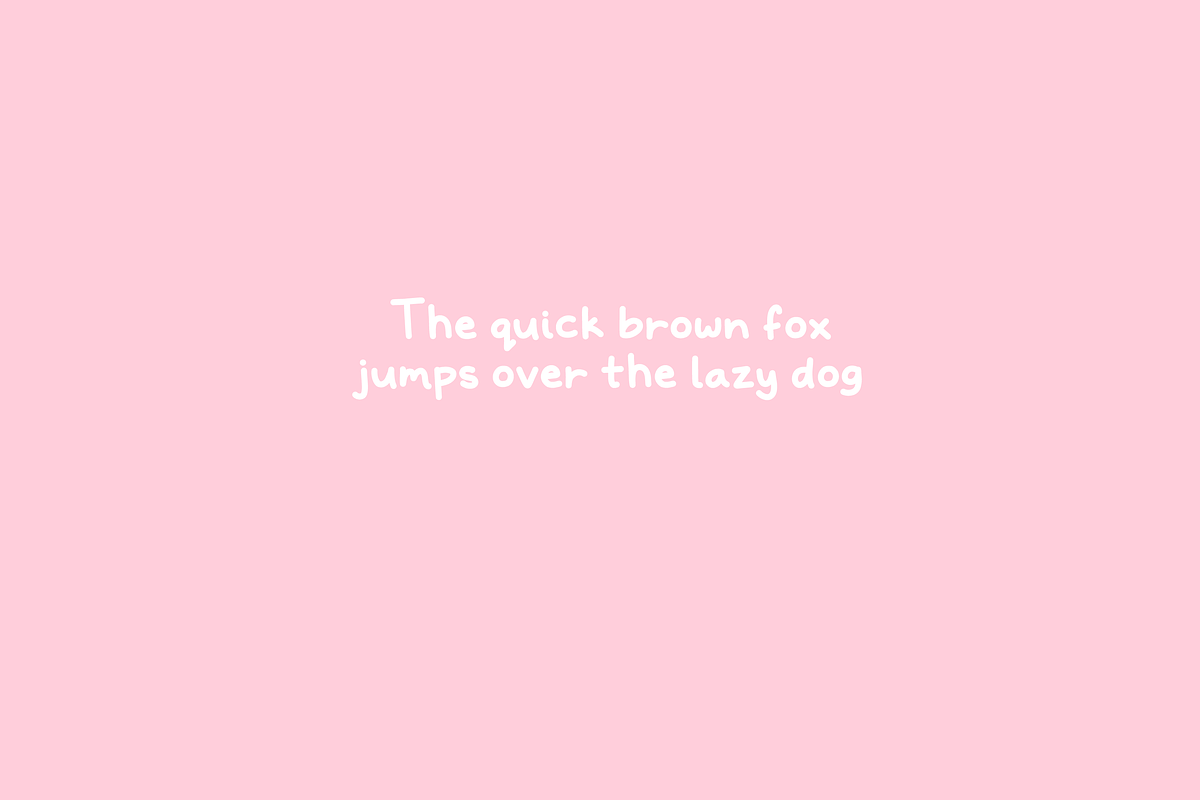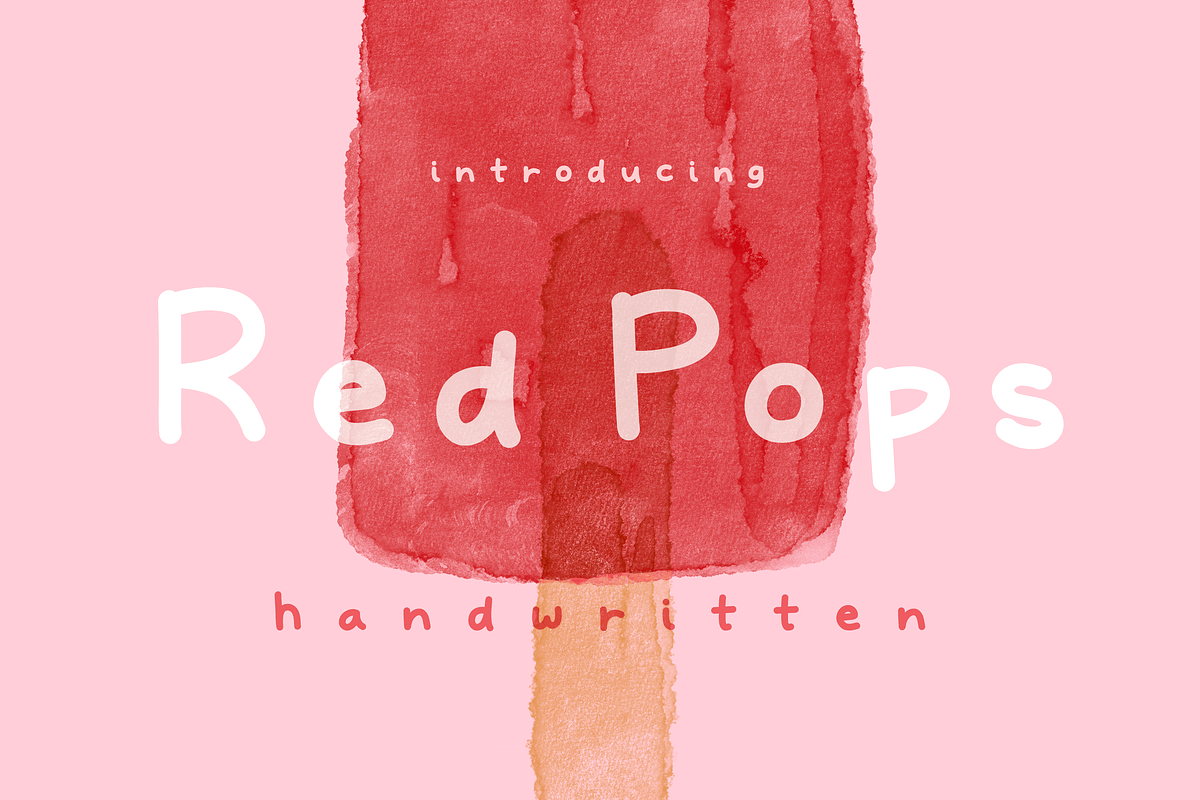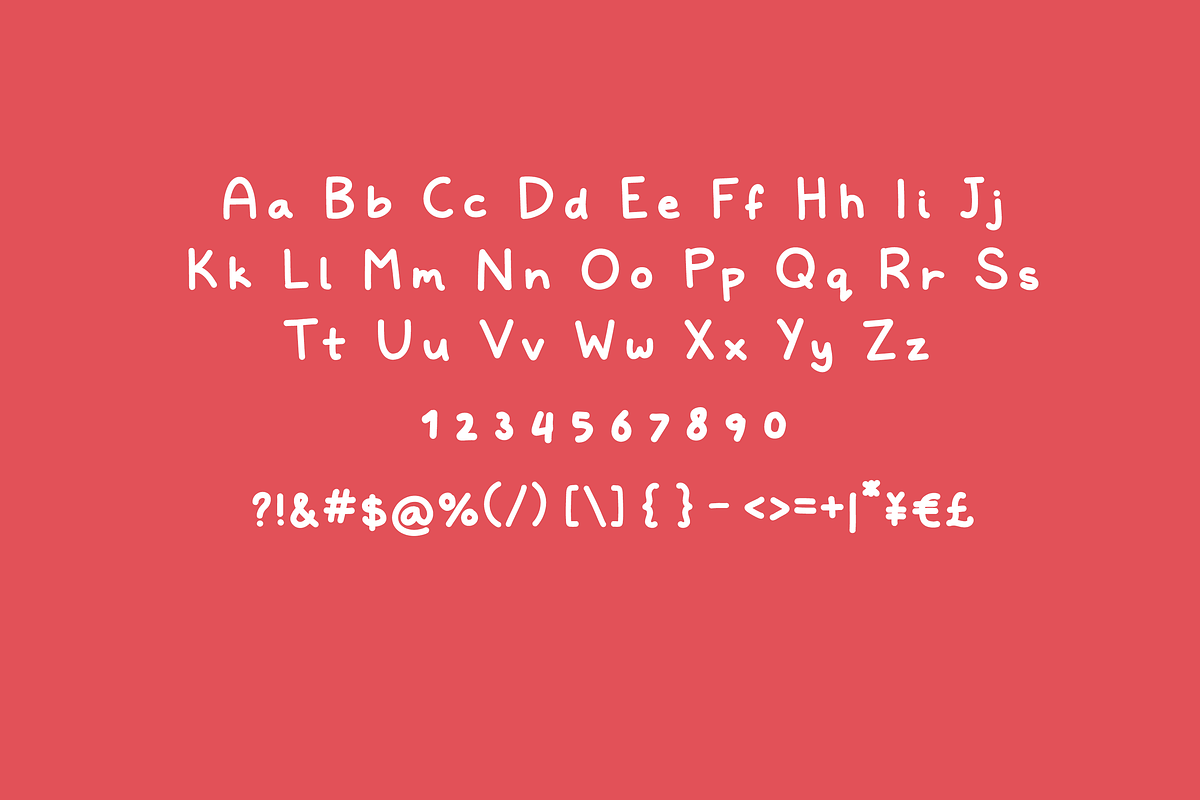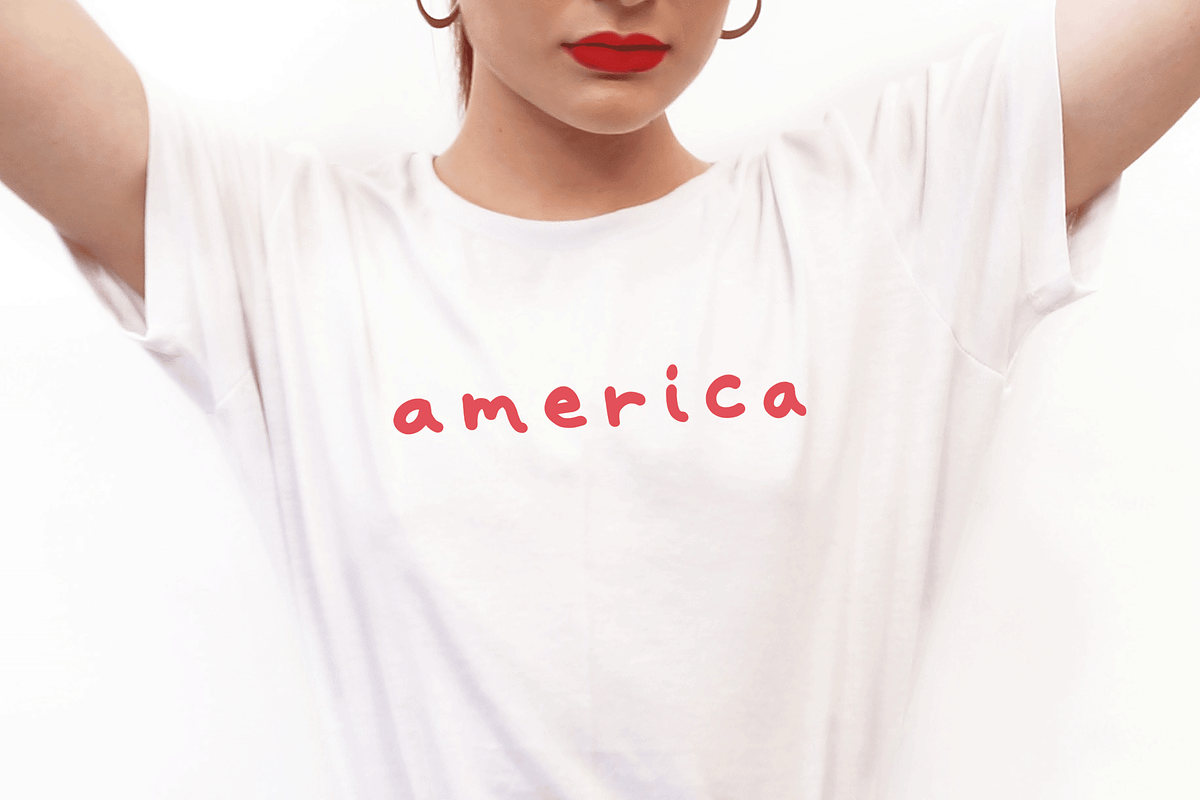
RedPops Handwritten
"RedPops" hand lettered installable font.
RedPops is handwritten font. This works great as both display or filler text. Use it for home decor, party invitations, logos, etc.! This is the perfect display font to have on hand.
Font includes: All caps glyphs, numbers, basic punctuation, and international characters.